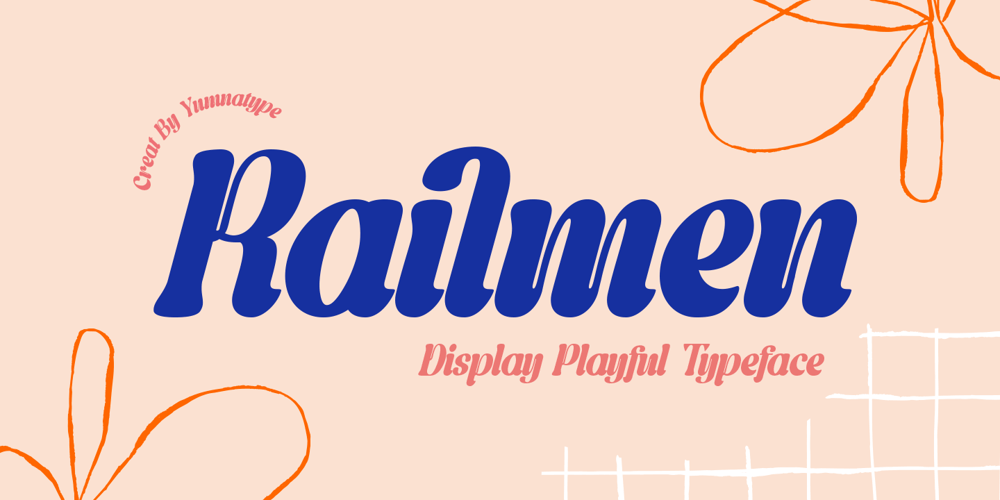
Railmen Font Family was designed by Donis Miftahudin and published by Yumna Type. Railmen contains 1 styles and family package options. Railmen is a delightful display font that exudes warmth and whimsy. With its charming design and dynamic appearance, this font adds a touch of personality and flair to any design project.Each letter in Railmen is crafted with playful shapes and bold strokes, giving it a sense of energy and vitality. The quite thick weight of the font adds to its strong and confident presence, while the high contrast ensures clarity and legibility in any size. In addition, enjoy the features here.Features: Ligatures Multilingual Supports PUA Encoded Numerals and Punctuations Railmen fits in headlines, logos, posters, flyers, branding materials, print media, editorial layouts, and many more designs. Find out more ways to use this font by taking a look at the font preview.Thanks for purchasing our fonts. Hopefully, you have a great time using our font. Feel free to contact us anytime for further information or when you have trouble with the font. Thanks a lot and happy designing.